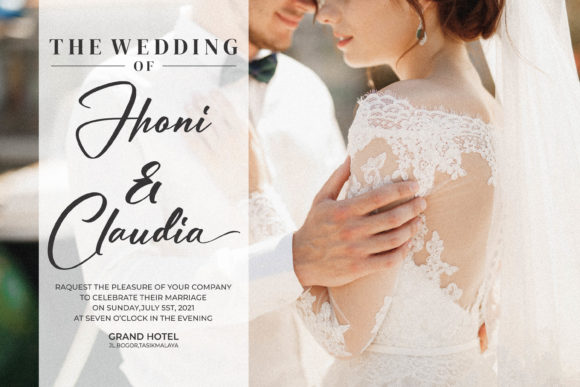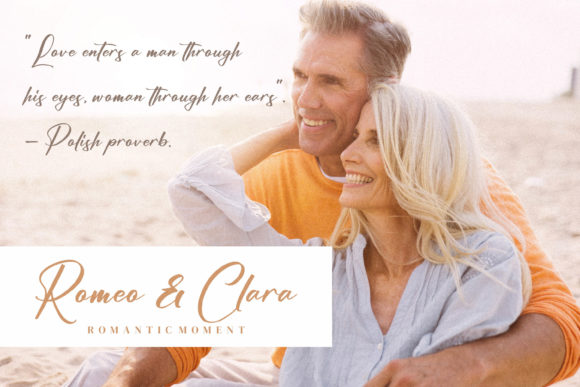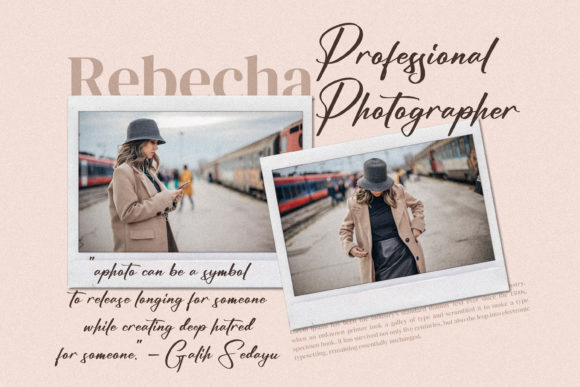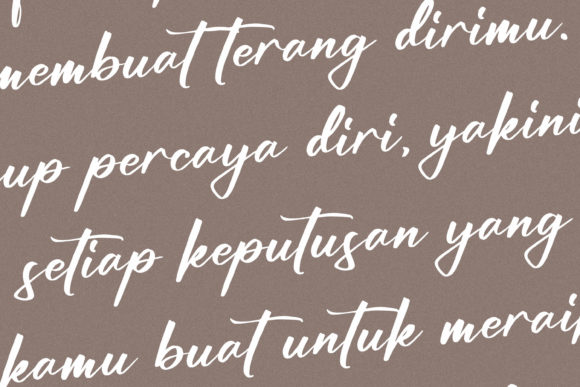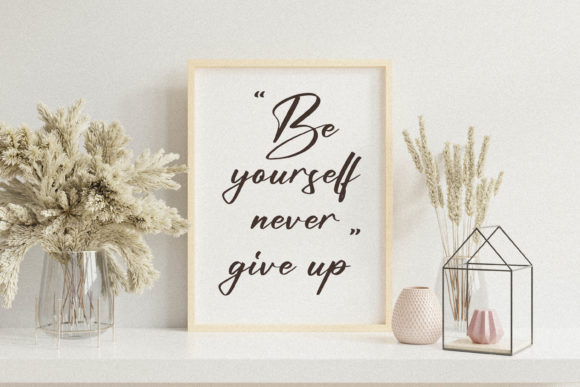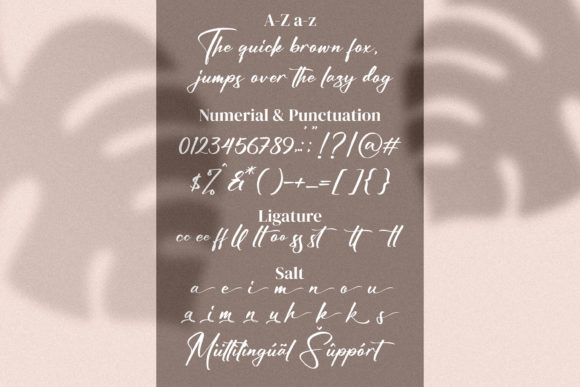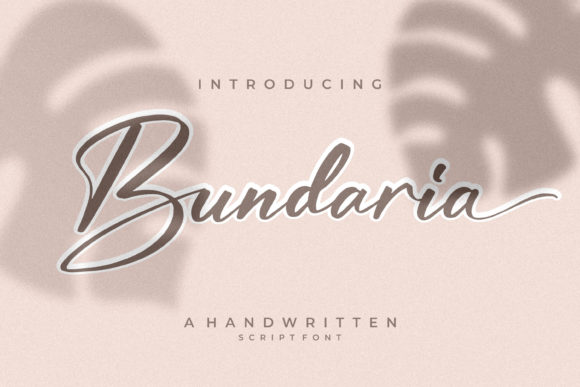
Bundaria Font: Elevate Your Designs with Elegance and Sophistication
In the world of typography, a font can make or break a design. For designers and crafters seeking to infuse their projects with a touch of sophistication and elegance, Bundaria Font stands out as an exceptional choice. This chic, refined script font is meticulously designed to bring a level of luxury and refinement to any project it is used in. With its stylish alternates and ligatures, Bundaria is not just a font; it’s an experience that elevates your designs to new heights.
The Essence of Bundaria
Bundaria is more than just a collection of letters; it’s a statement of style and grace. Its elegant strokes and beautiful swashes are designed to add a personal touch to any design, making it perfect for a wide range of projects, from branding and advertising to packaging and personal crafts. Whether you’re working on a high-end luxury brand or a delicate personal project, Bundaria brings the perfect blend of sophistication and charm.
One of the standout features of Bundaria is its PUA (Private Use Area) encoding. This means that accessing the font’s extensive range of glyphs and swashes is incredibly straightforward. Designers can easily incorporate these elements into their work without the hassle of navigating complex character maps or requiring additional software. This feature makes Bundaria not only beautiful but also highly practical for professional use.
Stylish Alternates and Ligatures
Bundaria’s real magic lies in its detailed design elements, including stylish alternates and ligatures. These features allow designers to customize their text, adding a layer of uniqueness and personality to their work. The alternates provide different stylistic options for letters, while the ligatures offer a seamless way to connect letters, creating a fluid and natural flow. This level of customization ensures that no two designs are ever the same, giving creators the freedom to express their vision fully.
The versatility of Bundaria makes it suitable for a myriad of applications. Here are a few examples of where this stunning font can make an impact:
- Branding and Logotypes: The elegant and sophisticated nature of Bundaria makes it an ideal choice for luxury brands looking to establish a refined and high-end image.
- Stationery and Invitations: Add a touch of class to your wedding invitations, business cards, and letterheads with Bundaria’s beautiful script.
- Digital Media: From social media graphics to website headers, Bundaria can elevate your digital content, making it more engaging and stylish.
- Crafting and DIY Projects: For crafters, Bundaria can add a professional and personalized touch to handmade products, such as journals, fabric designs, and more.
Bundaria Font is a game-changer for designers and crafters looking to infuse their projects with elegance and sophistication. Its stylish alternates, ligatures, and PUA encoding make it not only beautiful but also highly functional. Whether you’re working on a luxury brand, a personal craft, or anything in between, Bundaria offers the perfect combination of style, versatility, and ease of use. Elevate your designs with Bundaria and experience the difference that a truly exceptional font can make.
Incorporating Bundaria into your design toolkit is a step towards creating visually stunning and memorable projects. Its presence in your designs is sure to leave a lasting impression, setting your work apart in a crowded creative landscape. So, why settle for ordinary when you can create something extraordinary with Bundaria Font?